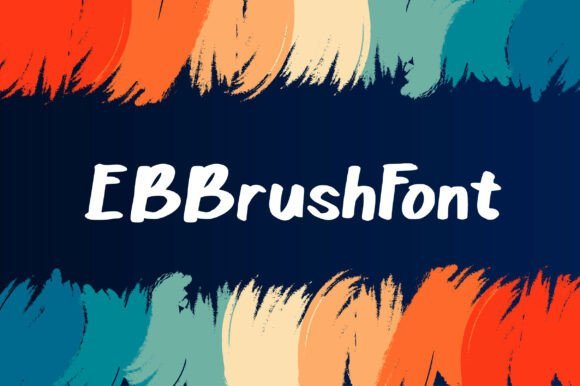
Unleash Your Inner Artist with the Ebbrush Font
Do you remember the feeling of sitting at your desk, pencil in hand, as you brought your latest comic strip or illustration to life? The scratch of the pencil on paper, the flow of your creative energy as the characters and worlds began to take shape? For many of us, that moment is a cherished part of our artistic journey, and one that we strive to recapture in our digital work.
That’s where the Ebbrush Font comes in – a precision-crafted typography tool designed to evoke the authentic, handwritten feel of freehand sketching. With its dynamic style and vigorous energy, this font is a valuable asset for designers and illustrators seeking to add a touch of charisma and personality to their artwork. Whether you’re creating comic strips, illustrations, or simply want to add a unique flair to your designs, the Ebbrush Font is an indispensable tool to have in your creative arsenal.
Ebbrush Font Key Features
- Unique Characteristics: The font features a unique blend of modern and traditional elements, with bold lines, geometric shapes, and subtle texture, making it perfect for creative and artistic applications.
Designer Review: Ebbrush Font
First impressions count, and Ebbrush Font caught my attention with its unique, hand-painted look. ✨ The subtle brush strokes and varying line widths give it a personal touch, perfect for projects that require a human element. I particularly love how it works well for titles, headings, and other emphasis text.
Here are some of its strengths:
- ✨ Unique, hand-painted look that adds a personal touch
- ✨ Works well for titles, headings, and emphasis text
- ✨ Versatile font suitable for various design projects
- ⚠️ Limited character set, which may cause issues for longer texts
- ⚠️ Not ideal for body text, as it can be hard to read in large quantities
- ⚠️ May not be suitable for formal or professional projects
Overall, Ebbrush Font is a great choice for designers looking to add a unique touch to their projects. While it has its limitations, its versatility and visually appealing design make it a great addition to any designer’s toolkit.
Use Ebbrush Font for creative projects, such as:
1. Handwritten-style invitations and greeting cards.
2. Artistic logos and branding materials.
3. Whimsical illustrations and graphics.
Experiment with different font sizes, colors, and styles to achieve unique and eye-catching designs.
Alternatives to Ebbrush Font
Playfair Display is a high-end serif font ideal for luxury brands, magazines, and high-end advertising. It features elegant connections between letters and beautiful swashes, making it perfect for creating a sophisticated and elegant atmosphere.
Comparison to Ebbrush Font: While Ebbrush Font has a more modern and edgy feel, Playfair Display is more traditional and luxurious. Ebbrush Font is better suited for modern and tech-related brands, whereas Playfair Display is ideal for high-end fashion, jewelry, and luxury goods.
Cream Soda is a modern, cursive script font with a friendly and approachable feel. It’s perfect for creating a warm and inviting atmosphere in logos, branding, and packaging.
Comparison to Ebbrush Font: While Ebbrush Font has a more edgy and modern feel, Cream Soda is softer and more playful. Ebbrush Font is better suited for modern and tech-related brands, whereas Cream Soda is ideal for food, beverage, and lifestyle brands that want to convey a sense of warmth and approachability.
Q: Does Ebbrush Font support advanced typography features?
Yes, Ebbrush Font supports a range of advanced typography features, including ligatures, swashes, and contextual alternates. It also includes a wide range of language support, including Latin, Cyrillic, and Greek scripts. This makes it an ideal choice for designers who need to create complex and nuanced typography for their projects.